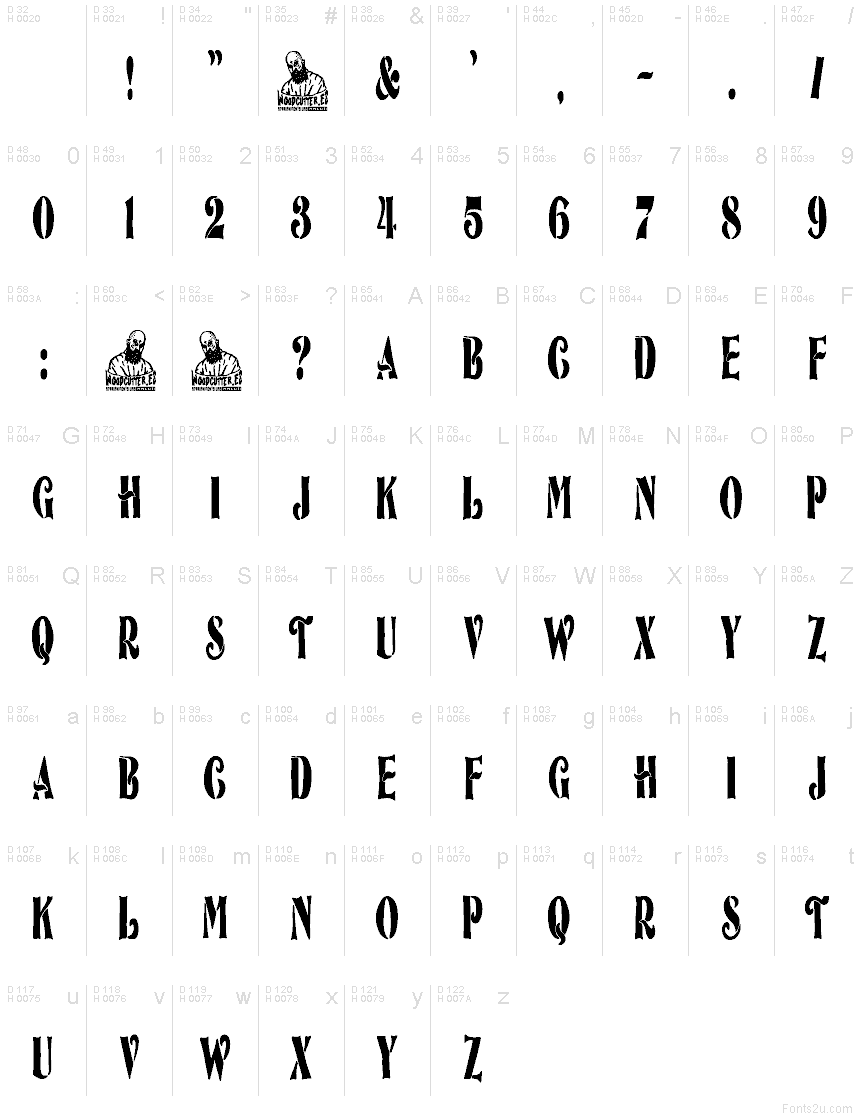
La Extra Pomposa
La Extra Pomposa font by Woodcutter is a free retro display typeface that swaggers onto the page with theatrical flair. Heavy letterforms carry carved swirls and teardrop cutouts, like poster woodblocks worn smooth by ink and time. The result is bold, ornate, and wonderfully showy—think carnival marquees and vaudeville headlines with a smoky, barroom glow.
Using La Extra Pomposa, headlines snap to attention for festival posters, vintage packaging, cocktail menus, book covers, album art, and boutique signage. Its chunky rhythm handles big sizes beautifully; give it air and let the flourishes breathe. Pair this free font with a plain grotesque or condensed sans to keep supporting text crisp and legible.